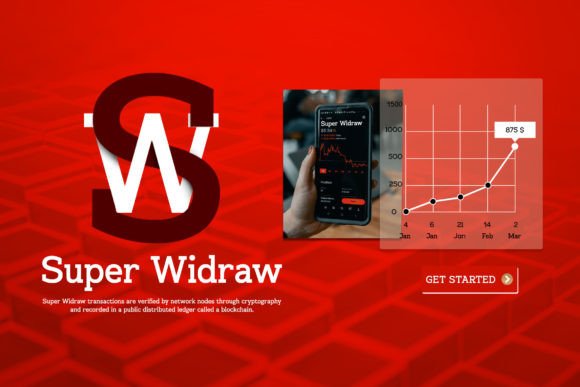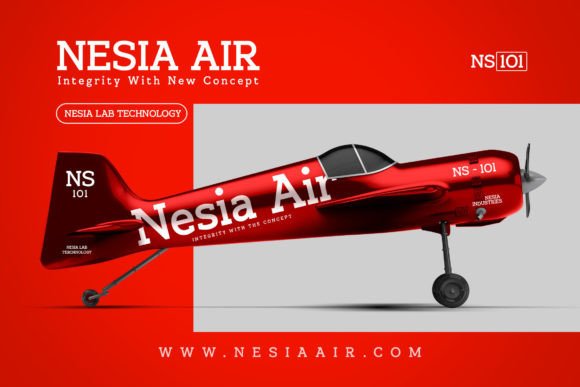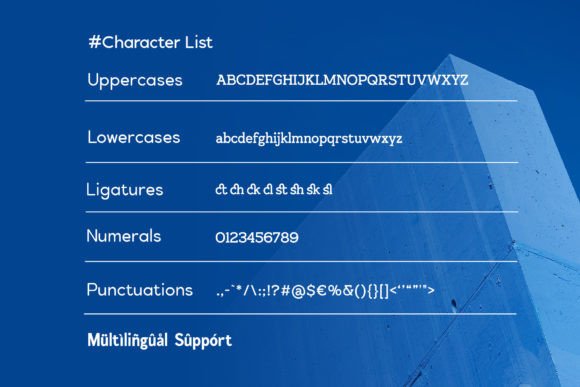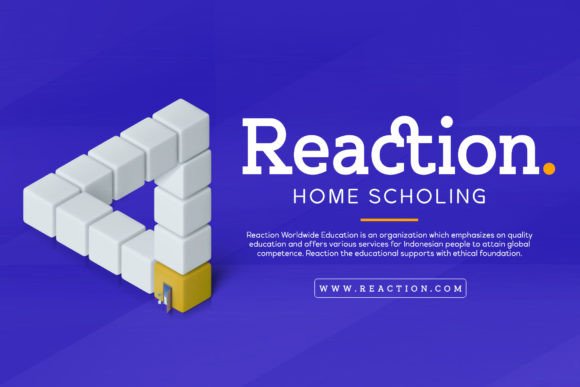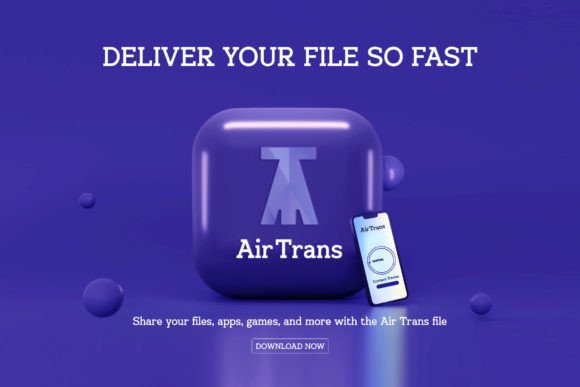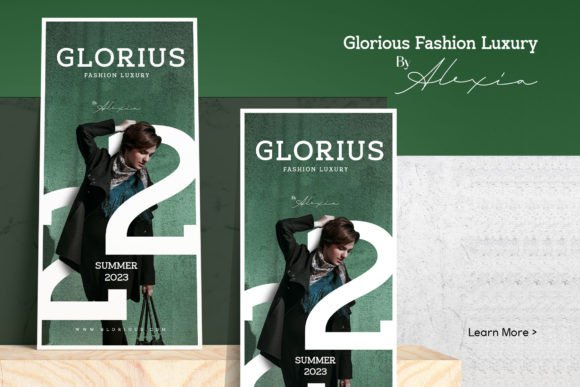
Introducing Beatone Font: The Ultimate Modern Clean Minimalist for Your Projects
Are you a designer or crafter looking for a font that embodies modernity, cleanliness, and minimalism? Look no further than Beatone Font. This versatile and stylish font is perfect for a wide range of projects, from logo branding and editorial design to stationery design, esports, and more.
What Makes Beatone Font Stand Out?
Beatone Font is a modern clean minimalist font that boasts a unique and sophisticated aesthetic. Its clean lines, simple shapes, and elegant curves make it perfect for designs that require a touch of sophistication and elegance. Whether you’re working on a logo, editorial design, or digital music poster, Beatone Font is sure to impress.
Beatone Font is an incredibly versatile font that can be used for a variety of projects, including:
- Logo Branding: Create a lasting impression with a custom logo that exudes professionalism and style.
- Editorial Design: Elevate your magazine, newspaper, or blog with a font that is both modern and easy to read.
- Stationery Design: Add a touch of elegance to your business cards, letterheads, and envelopes.
- Esports Design: Give your gaming brand a competitive edge with a font that is both modern and bold.
- Game Industry: Create engaging and immersive gaming experiences with a font that is both fun and sophisticated.
- Sports Racing: Rev up your designs with a font that embodies speed, energy, and excitement.
- Techno/Gadget Brand: Showcase your innovative products with a font that is both modern and cutting-edge.
- Digital Music Poster: Create eye-catching posters that showcase your music and style.
- Apps Startup Design: Give your app a professional and modern look with a font that is both clean and elegant.
- Modern Advertising Design: Create stunning ads that grab attention and drive results.
- Art Quote: Add a touch of sophistication to your art quotes and sayings.
- Home Decor: Elevate your home decor with a font that is both modern and stylish.
- Book/Cover Title: Create eye-catching book covers that stand out on the shelves.
- Special Events: Make your events unforgettable with a font that is both elegant and sophisticated.
Why Choose Beatone Font?
There are many reasons why Beatone Font stands out from the rest. Here are just a few:
- Modern and Clean: Beatone Font is a modern clean minimalist font that is perfect for designs that require a touch of sophistication and elegance.
- Highly Versatile: Beatone Font can be used for a wide range of projects, from logo branding to digital music posters.
- Easy to Read: Beatone Font is highly legible, making it perfect for body text and headlines.
- Unique Aesthetic: Beatone Font boasts a unique and sophisticated aesthetic that sets it apart from other fonts.
Tips for Using Beatone Font
Here are a few tips for getting the most out of Beatone Font:
- Pair it with Other Fonts: Beatone Font pairs well with other modern clean fonts, such as sans-serif fonts.
- Experiment with Colors: Beatone Font looks great in a variety of colors, from bold and bright to neutral and subtle.
- Use it for Headlines and Body Text: Beatone Font is highly legible, making it perfect for both headlines and body text.
In conclusion, Beatone Font is a modern clean minimalist font that is perfect for a wide range of projects. Its unique aesthetic, versatility, and ease of use make it a must-have for designers and crafters. Whether you’re working on a logo, editorial design, or digital music poster, Beatone Font is sure to impress. So why wait? Download Beatone Font today and take your designs to the next level!